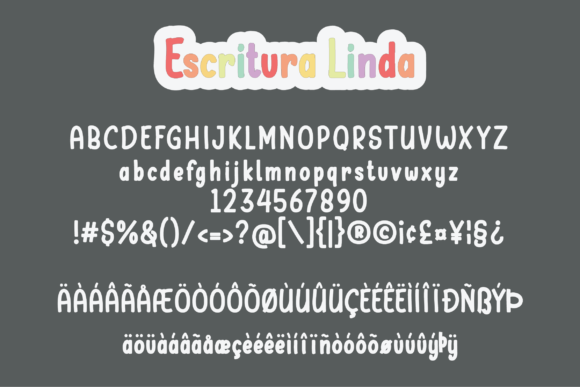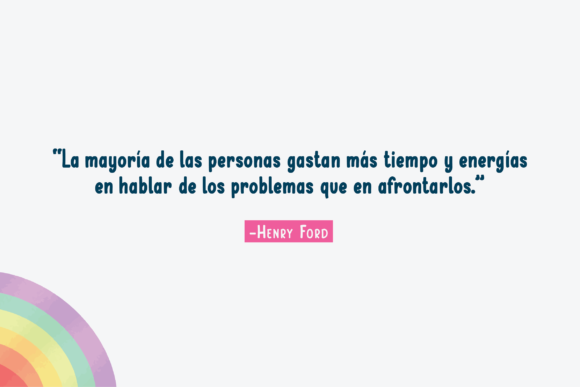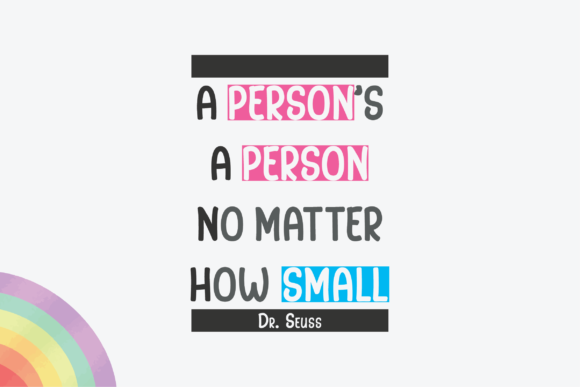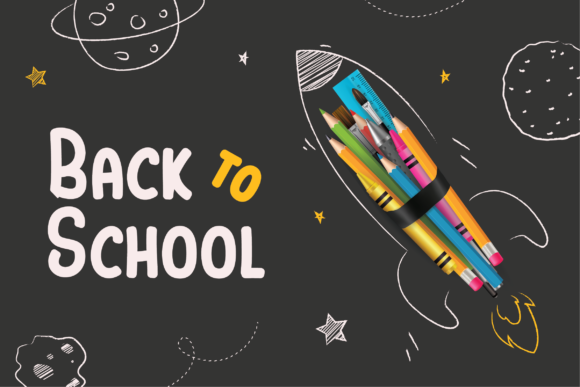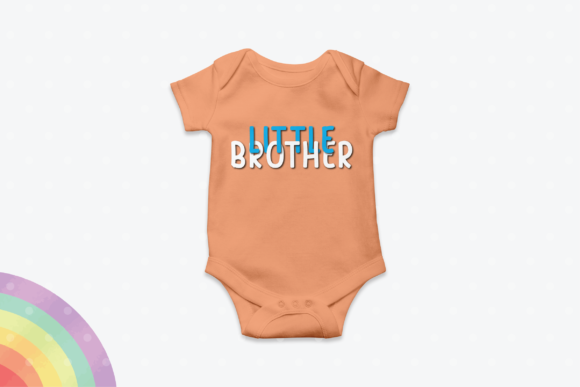
Discover the Beauty of Escritura Linda Font: Elevate Your Designs with this Stunning Display Font
Are you tired of using the same old fonts in your design projects? Do you want to add a touch of elegance and sophistication to your creations? Look no further than Escritura Linda Font, a cool, clean, and adaptable display font that is sure to make your designs stand out. In this article, we’ll take a closer look at Escritura Linda Font, its features, and how you can use it to elevate your designs.
What is Escritura Linda Font?
Escritura Linda Font is a unique and stylish display font that is perfect for designers and crafters looking to add a touch of glamour to their projects. This font is characterized by its clean lines, elegant curves, and sophisticated feel. Whether you’re working on a logo, brochure, or website, Escritura Linda Font is sure to make a lasting impression.
Key Features of Escritura Linda Font
• Cool and Clean Design: Escritura Linda Font features a modern and sleek design that is perfect for creating stunning visual effects.
• Adaptable: This font is highly versatile and can be used in a variety of design projects, from logos and brochures to websites and social media graphics.
• Unique and Stylish: Escritura Linda Font has a distinctive style that sets it apart from other fonts, making it perfect for designers looking to create something truly unique.
• Elegant and Sophisticated: This font exudes elegance and sophistication, making it perfect for high-end designs and luxury brands.
How to Use Escritura Linda Font in Your Designs
Escritura Linda Font is incredibly easy to use and can be incorporated into your designs in a variety of ways. Here are a few ideas to get you started:
• Logos and Branding: Use Escritura Linda Font to create a stunning logo that reflects your brand’s personality and style.
• Brochures and Flyers: Add a touch of elegance to your marketing materials with Escritura Linda Font.
• Websites and Social Media: Use this font to create stunning website headers, social media graphics, and more.
• Stationery and Packaging: Add a touch of sophistication to your stationery and packaging with Escritura Linda Font.
Why Choose Escritura Linda Font?
With so many fonts to choose from, why should you choose Escritura Linda Font? Here are just a few reasons:
• Unique Style: Escritura Linda Font has a distinctive style that sets it apart from other fonts.
• High-Quality Design: This font is designed with high-quality craftsmanship in mind, ensuring that it looks stunning in any design.
• Easy to Use: Escritura Linda Font is incredibly easy to use and can be incorporated into your designs in just a few clicks.
• Versatile: This font can be used in a variety of design projects, making it a great addition to any designer’s toolkit.
Escritura Linda Font is a stunning display font that is perfect for designers and crafters looking to add a touch of elegance and sophistication to their designs. With its cool, clean, and adaptable design, this font is sure to make any design project stand out. Whether you’re working on a logo, brochure, website, or social media graphic, Escritura Linda Font is a great choice. So why wait? Download Escritura Linda Font today and start creating stunning designs that will leave a lasting impression.